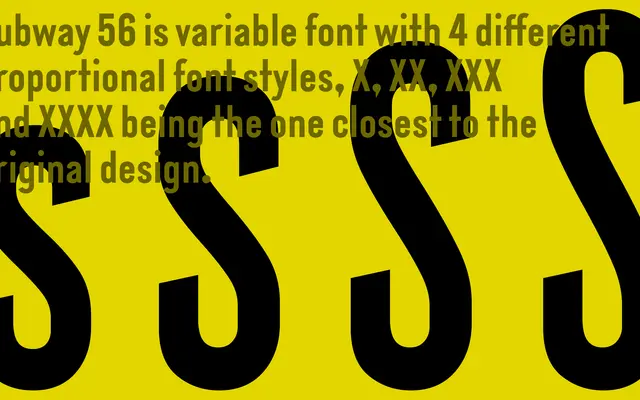
Subway 56
A2-Type · 2015
Drawn from mid-century New York Transit Museum signage and originally commissioned by art director Matt Willey for the New York Times Magazine in 2015, then expanded in 2022 into four height variants.
Originally a single-style commission for the New York Times Magazine 'Walking' issue, the typeface takes its letterforms directly from signs held in the Brooklyn-based New York Transit Museum collection. In 2022 A2-Type expanded it into a multi-height family of four masters — X, XX, XXX and XXXX — giving designers control over vertical proportion while retaining the original's period character. The result works across editorial, signage and display applications at both large and small sizes.
A single-style sans drawn from mid-century New York transit signage, placing it firmly in the vernacular or sign-painter tradition of sans-serif lettering rather than any formal grotesque or geometric lineage.